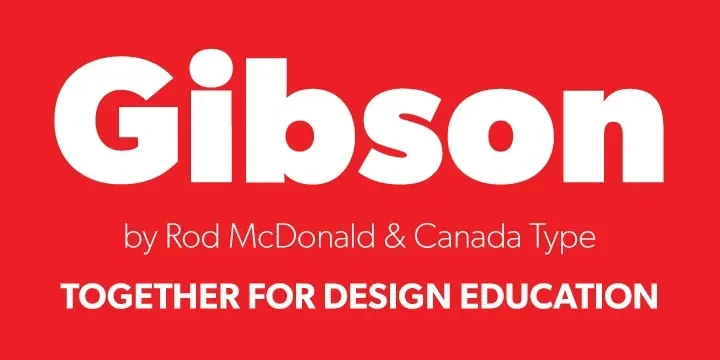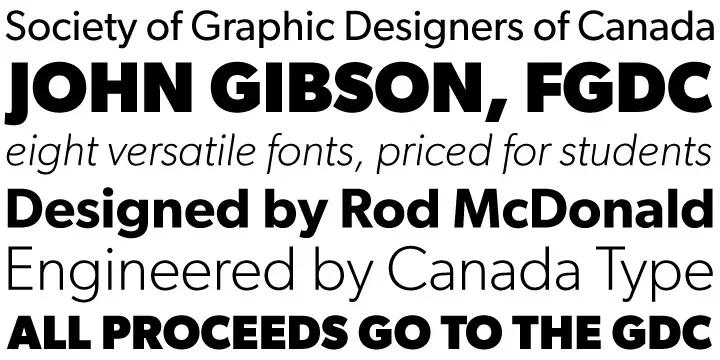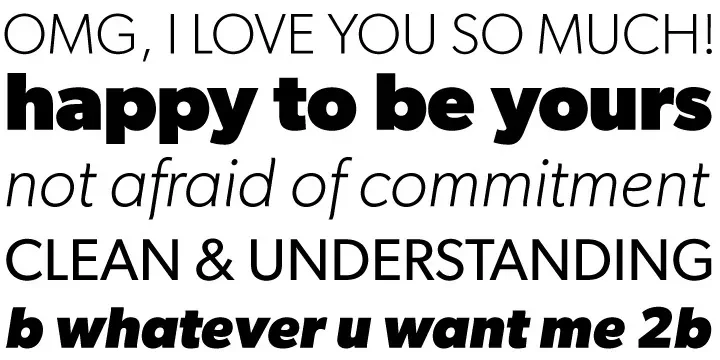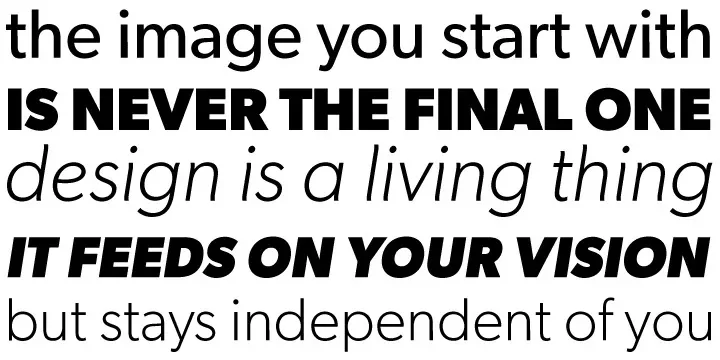
Gibson Font feels welcoming yet polished like a sturdy handshake with a smile. Created by Rod McDonald in 2011 for Canada Type to honor his colleague John Gibson, this typeface blends humanist warmth with clear geometry
With nine weights and matching italics, it’s become a go-to font for designers needing versatility without stiffness. Whether you're building a website, designing a report, or crafting a brand identity, it quietly carries your message with style and professionalism.
Designer: Rod McDonald, with Patrick Griffin & Kevin King for Canada Type
Released: 2011
Style: Humanist sans serif
Purpose: Created to honor John Gibson and support Canadian design education, proceeds assist the Graphic Designers of Canada
9 weights plus italics, each with over 1,200 glyphs and pan-European language support
Strong x-height with gentle humanist curves, easy to read in any size. Includes a variable font option (released 2023–2024)
Designed for both print and screen, a trusted “workhorse” for UX, reports, and editorial layouts
Gibson Font is perfect for branding, corporate materials, editorial spreads, and web UI. It reads beautifully in both large and small sizes. For a fresh combo, pair it with elegant serifs like Freight Big or Athelas, or contrast it with clean geometricals like Montserrat or Noto Sans for a modern look.